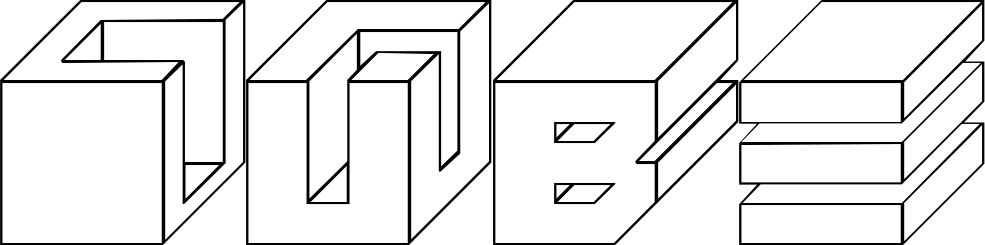
Cube Font
Today’s techno font has a square design and gives off a futuristic and geometric vibe! Cube has a hollow and long look and will give a digital look to your readers.
You can use it to write gaming titles, movie and book names, futuristic flyers, digital device introductions, and graffiti. This font only supports capital letters and the punctuational set is not complete.